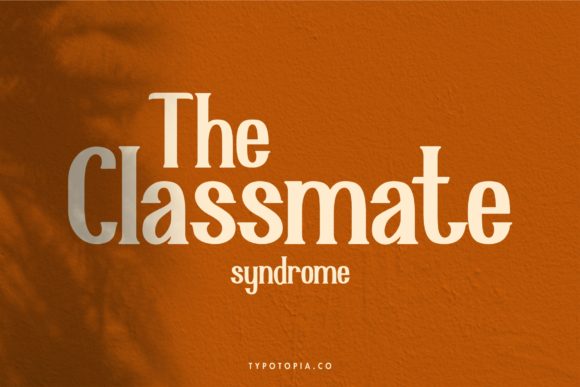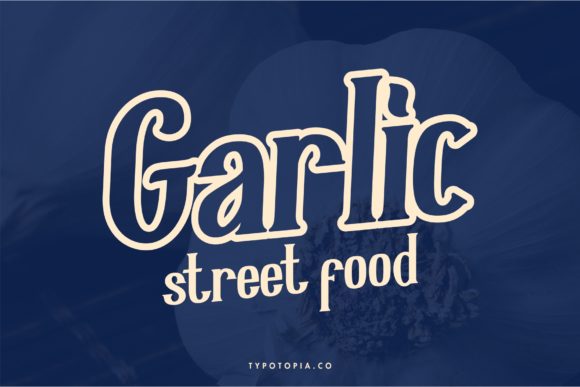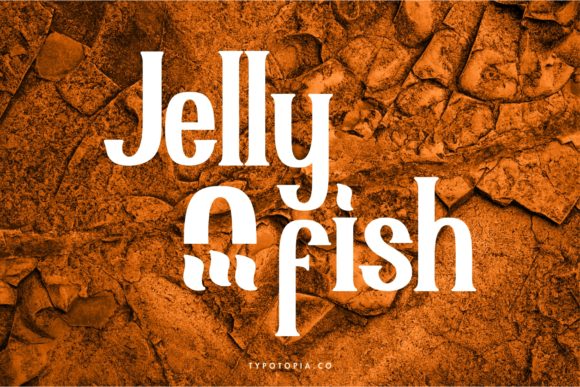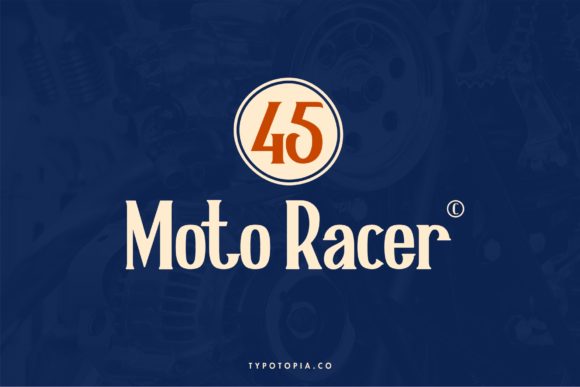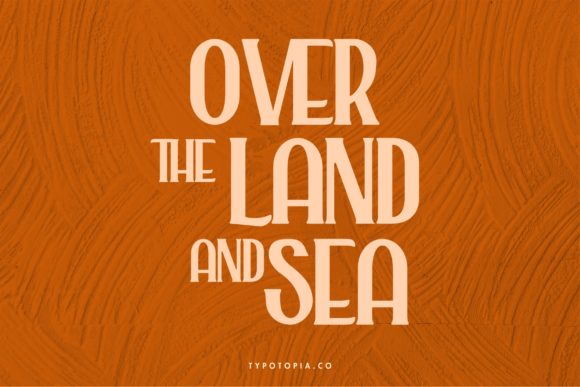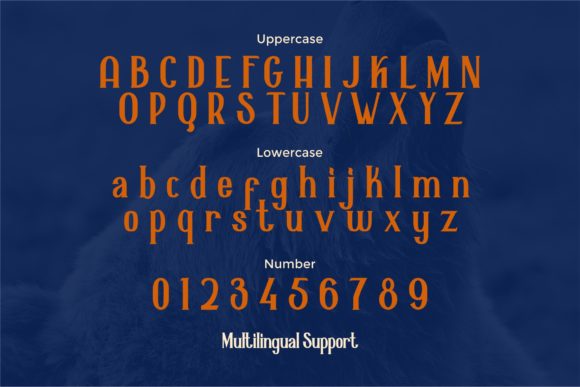
Introducing Alaska Font: The Bold and Authentic Display Font for Creative Masterpieces
Are you a designer, crafty enthusiast, or simply someone who appreciates the art of typography? Look no further! We’re excited to introduce you to Alaska Font, a bold and authentic display font that’s about to take your creative projects to new heights. In this article, we’ll dive into the world of Alaska Font, exploring its features, benefits, and uses, as well as provide valuable insights for designers and crafters.
What is Alaska Font?
Alaska Font is a masterfully designed display font that’s perfect for those who crave a bold and authentic look. Its unique style and character make it an excellent choice for a wide range of creative projects, from branding and advertising to crafting and DIY endeavors. With Alaska Font, you can add a touch of sophistication and elegance to your work, making it stand out from the crowd.
Key Features of Alaska Font
- Bold and Authentic: Alaska Font boasts a bold and authentic style that’s sure to grab attention.
- High-Quality Design: Masterfully crafted with attention to detail, ensuring a clean and precise look.
- Versatile: Suitable for various creative projects, including branding, advertising, crafting, and more.
Benefits of Using Alaska Font
So, why choose Alaska Font for your creative projects? Here are just a few benefits you can expect:
- Enhanced Visual Appeal: Add a touch of sophistication and elegance to your work, making it more visually appealing.
- Increased Legibility: Alaska Font’s clear and precise design ensures that your message is conveyed effectively.
- Unique Style: Stand out from the crowd with a font that’s both bold and authentic.
Uses of Alaska Font
Alaska Font is an incredibly versatile font that can be used in a wide range of creative projects, including:
- Branding and Advertising: Create eye-catching logos, posters, and advertisements that grab attention.
- Crafting and DIY: Add a personal touch to your handmade crafts, such as cards, invitations, and scrapbooking.
- Graphic Design: Use Alaska Font in your graphic design projects, such as brochures, flyers, and social media graphics.
- Web Design: Enhance your website’s typography with Alaska Font, making it more visually appealing and engaging.
- Experiment with Colors: Pair Alaska Font with bold and vibrant colors to create a stunning visual effect.
- Play with Texture: Add texture to your design to give it a more organic and handmade feel.
- Mix and Match: Combine Alaska Font with other fonts to create a unique and eye-catching typography.
- Keep it Simple: Don’t overcomplicate your design – let Alaska Font’s bold and authentic style shine through.